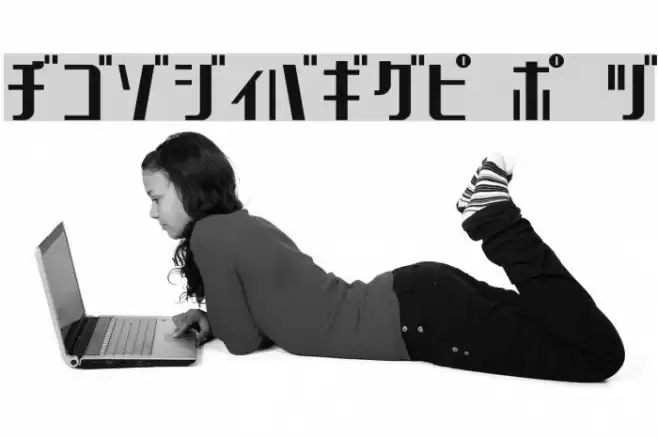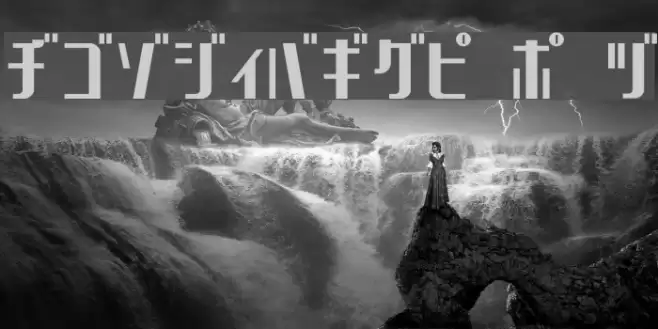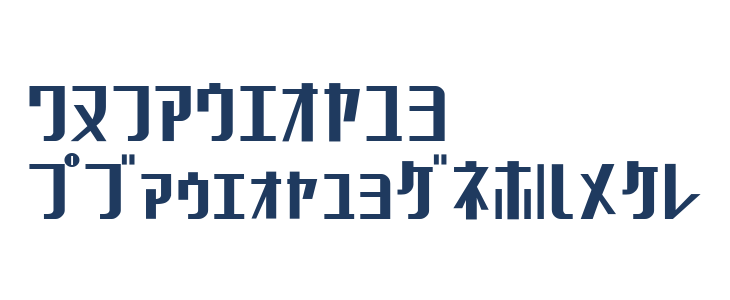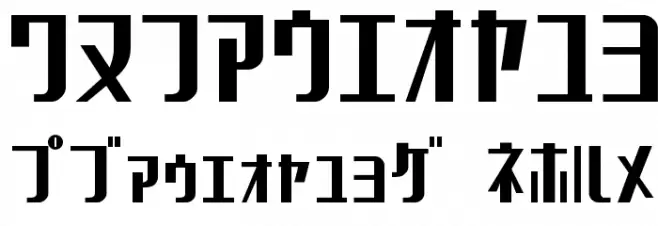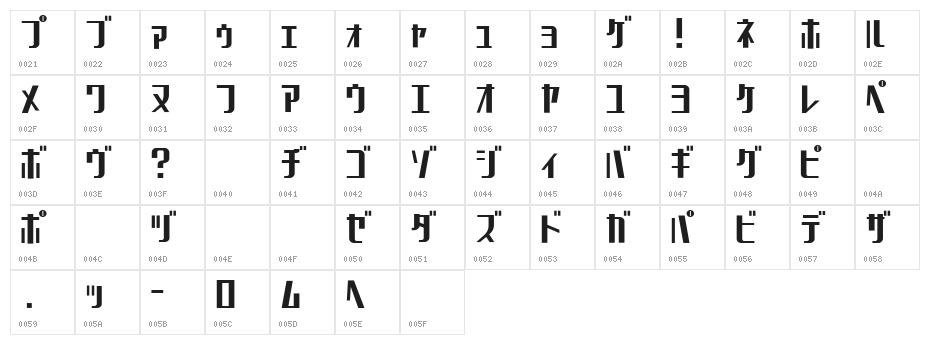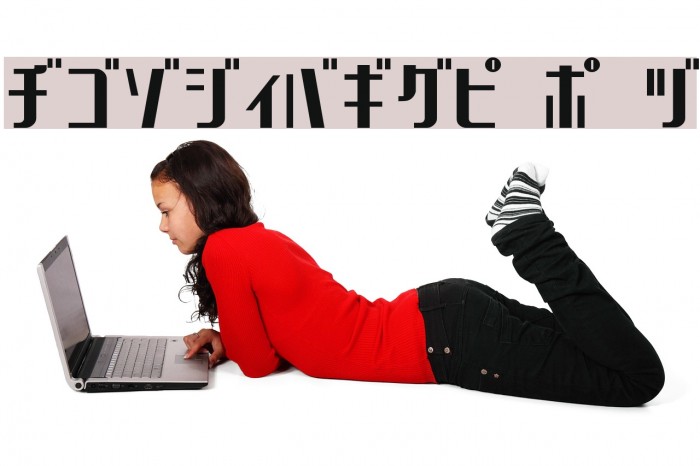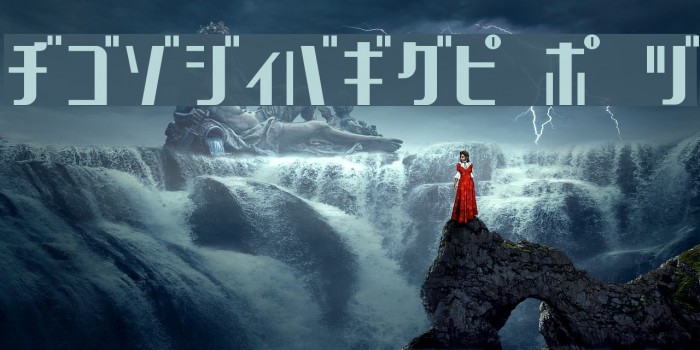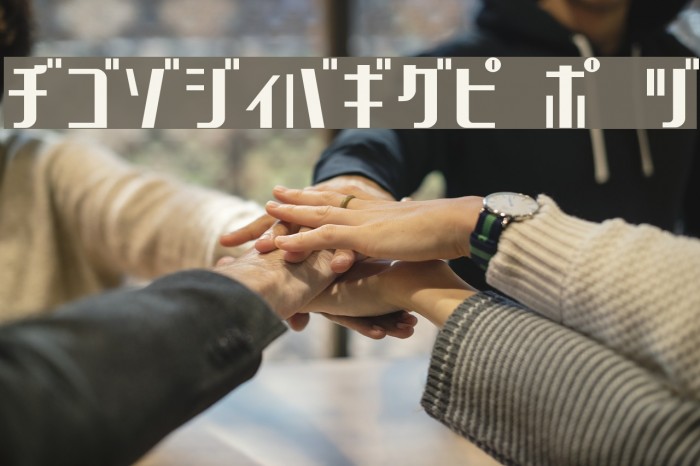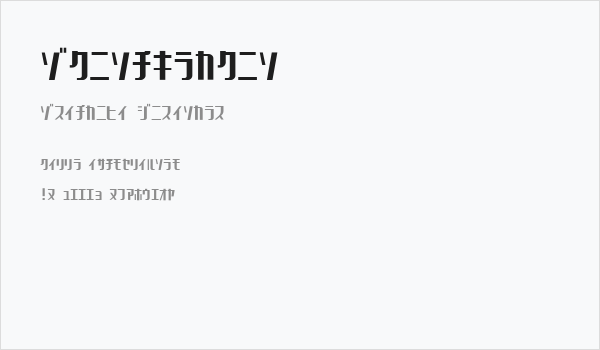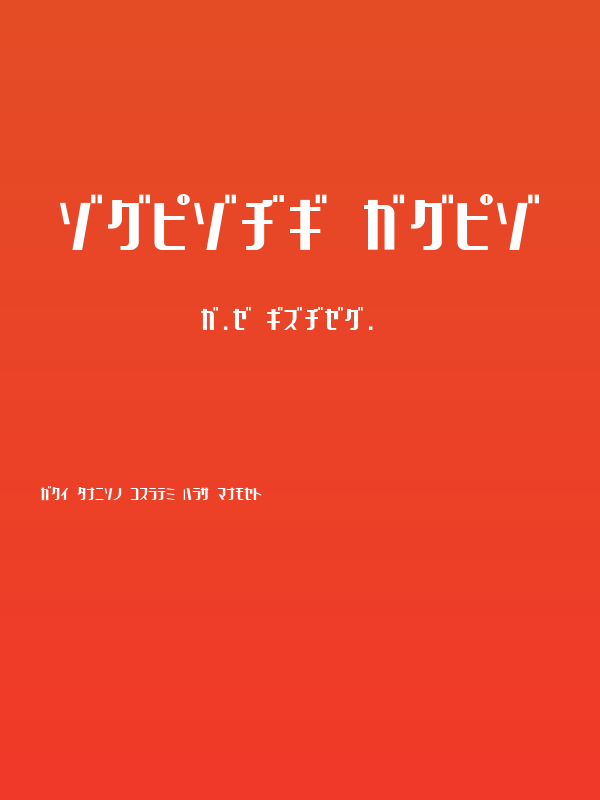
Chicagothic Font
Chicagothic Description
A geometric, sans-serif typeface with uniform stroke thickness, squared-off terminals, and a condensed structure. The characters are tall with minimal contrast, and the overall appearance is modern and mechanical.
Condensed geometric sans-serif with squared terminals and uniform strokes from Asian fonts.
- Proposed Projects: Posters, branding, editorial headlines, signage, digital interfaces.
- Overall Style: Modern, Mechanical
- Use Case: Headlines, Posters, Signage, Branding